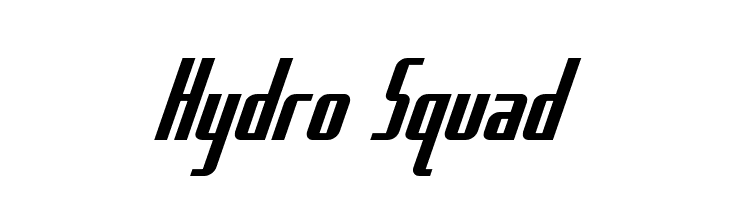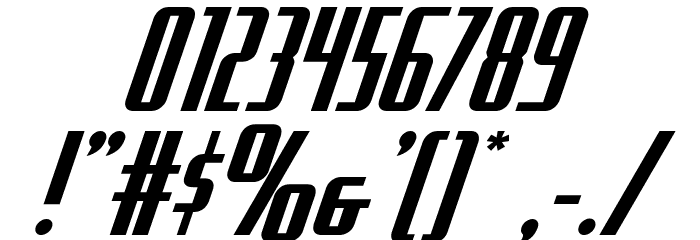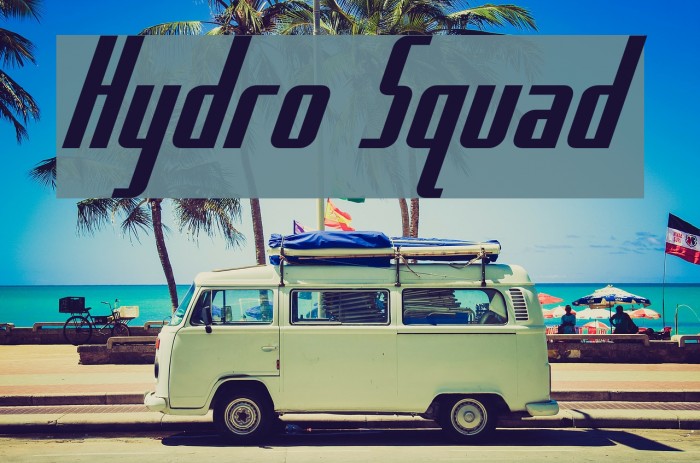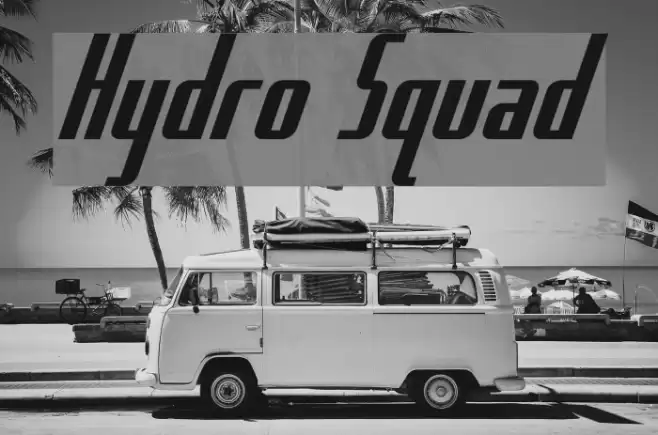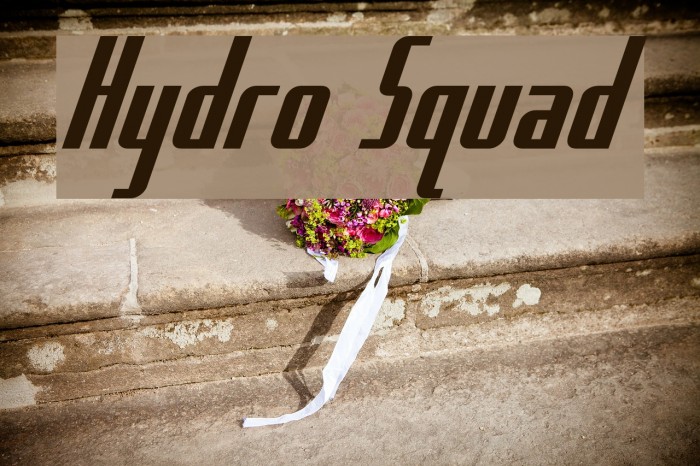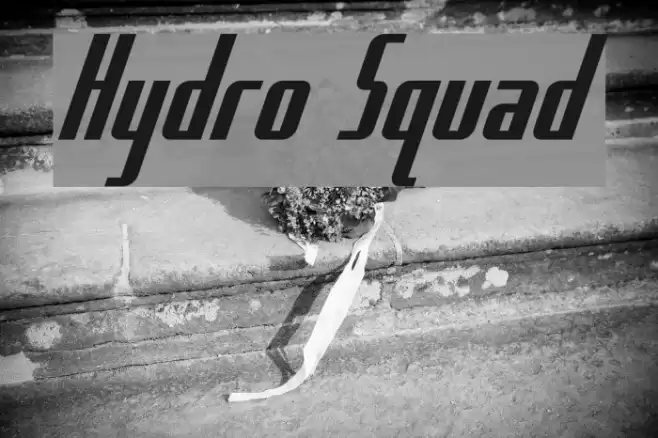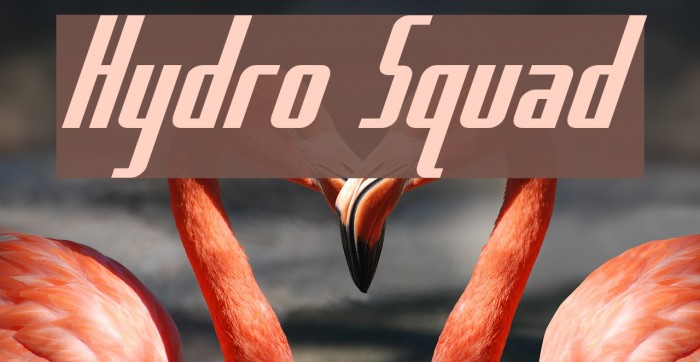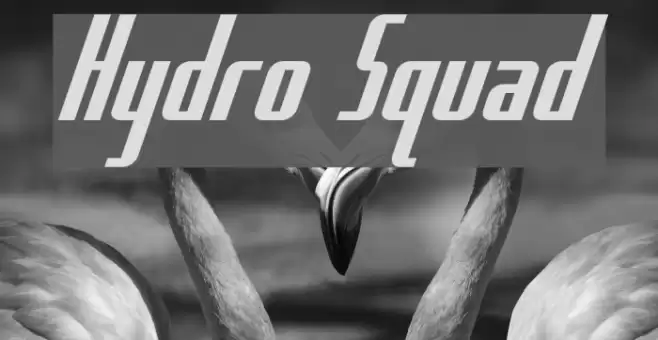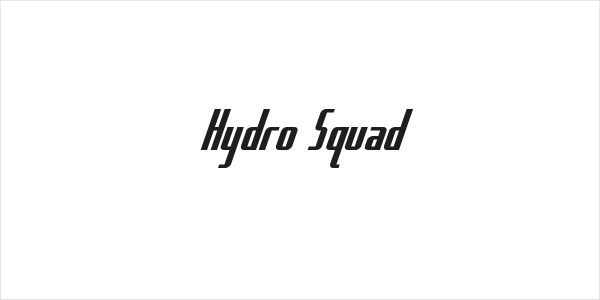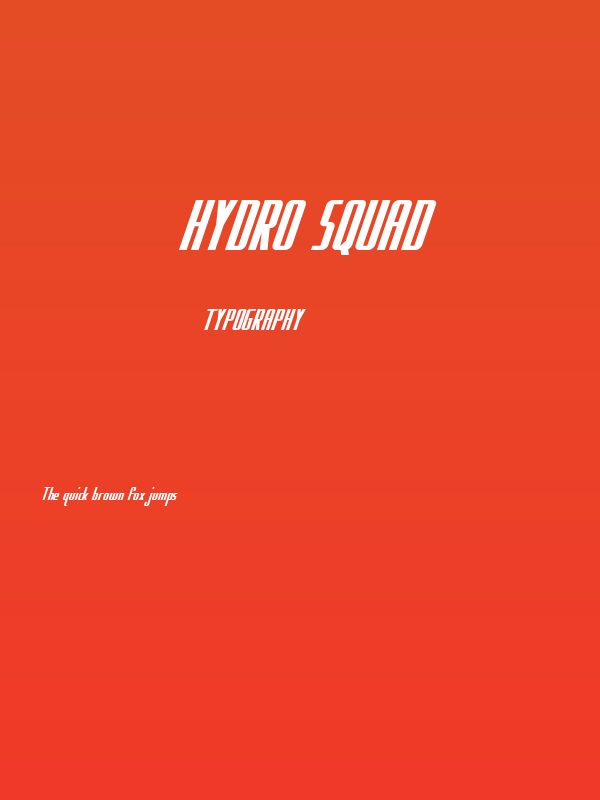
Hydro Squad Font
Hydro Squad Description
This font features a bold, italicized style with a strong, dynamic presence. The characters are elongated and slightly condensed, giving a sense of speed and movement. The uppercase and lowercase letters maintain a consistent slant, enhancing the italic effect. The numbers and special characters follow the same design principles, ensuring uniformity across all glyphs. The strokes are thick, providing high contrast and making the font highly legible even from a distance. This design is ideal for creating impactful headlines or logos that require a modern and energetic feel.
| Proposed Projects | Ideal for sports branding, dynamic logos, and modern advertising campaigns. |